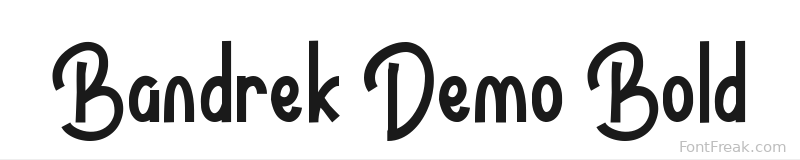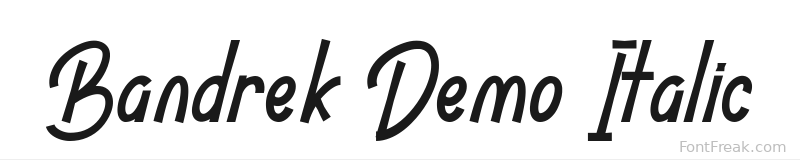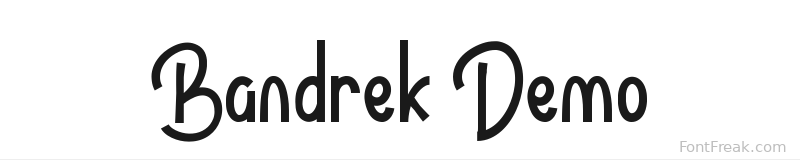
Bandrek Demo
Bandrek Demo Italic
Bandrek Demo Bold
Bandrek Demo font by Noah Type is a striking display typeface that effortlessly combines modern flair with a touch of whimsy. This font features a unique mix of bold and italic styles, creating a dynamic visual experience. The stroke weight is consistent, yet it varies subtly across characters, contributing to a lively aesthetic. The spacing between letters is thoughtfully designed, ensuring readability while maintaining an artistic appeal. Bandrek Demo incorporates playful decorative elements that enhance its overall charm, making it a perfect choice for a variety of design projects.
This font is particularly well-suited for use in wedding invitations, where its elegant yet approachable style can set a delightful tone. It also excels in creating eye-catching movie posters, drawing attention with its distinctive presence. Restaurant menus benefit from the font's inviting character, making dishes seem even more appealing. Additionally, Bandrek Demo can be effectively employed in branding for small businesses, helping to create memorable logos that resonate with customers. Content creators will find this font beneficial for social media graphics, where a unique typographic style can help stand out in crowded feeds.
What sets Bandrek Demo apart is its ability to blend playful elegance with versatility. This font not only captures attention but also conveys a sense of personality, making it an excellent choice for those looking to make a lasting impression in their designs.